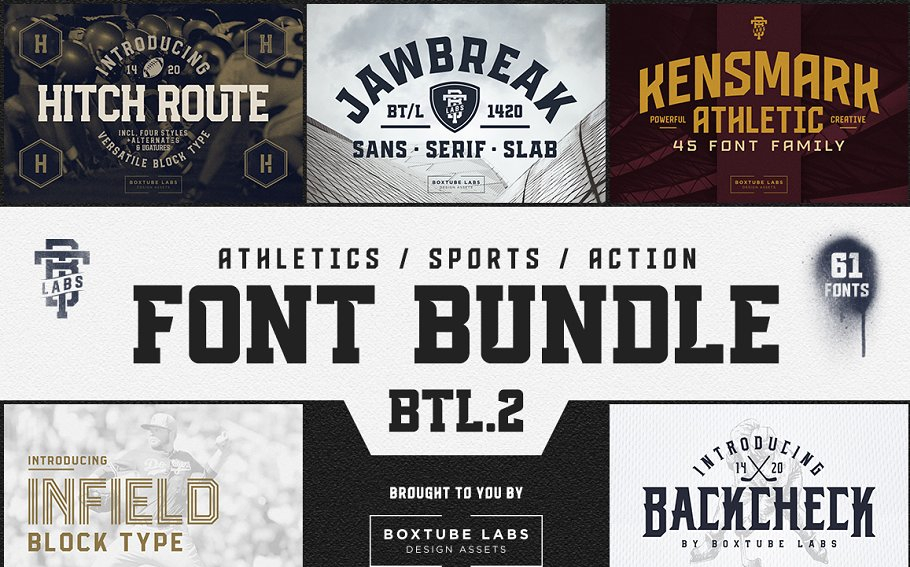
Sports Fonts Bundle Btl1
Elevate your sports-themed projects with the Sports Fonts Bundle Btl1. This collection features a variety of dynamic and energetic font styles designed specifically for sports branding, logos, merchandise, and promotional materials.
• Multiple font styles including bold, italic, and condensed options
• Unique designs that capture the spirit of sports
• Weight options: Regular, Bold, and Extra Bold
• Suitable for both display and text usage
• Ideal for creating team logos, jerseys, and sports event posters
• Use in digital and print formats for maximum impact
• Combine different styles for a unique look